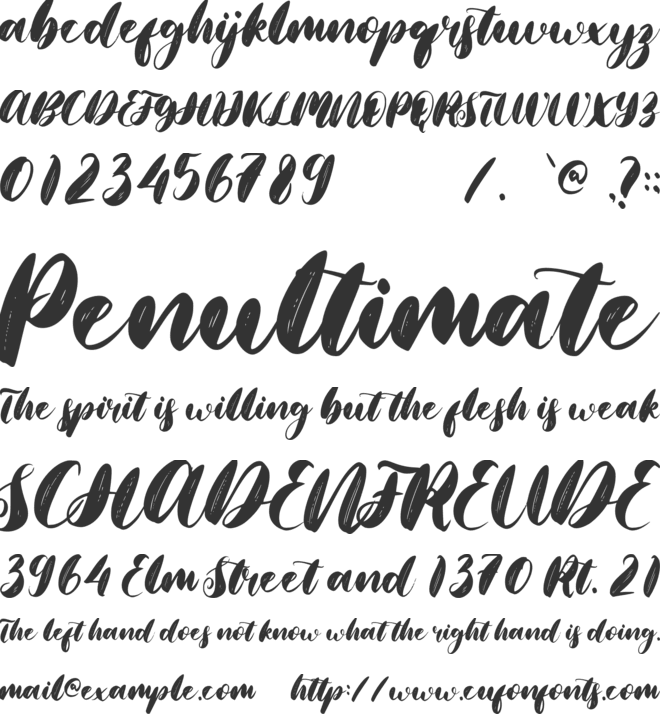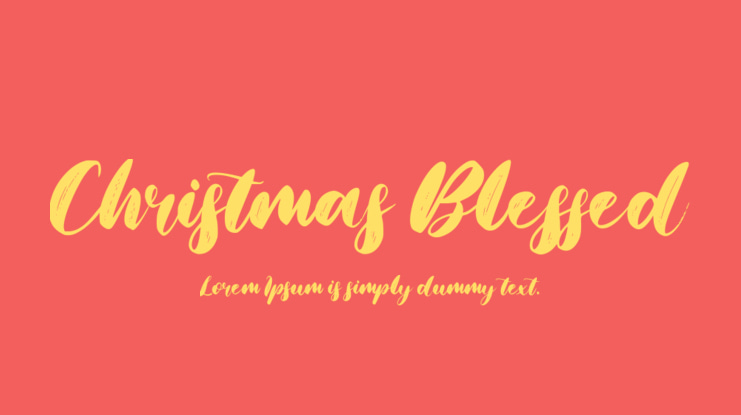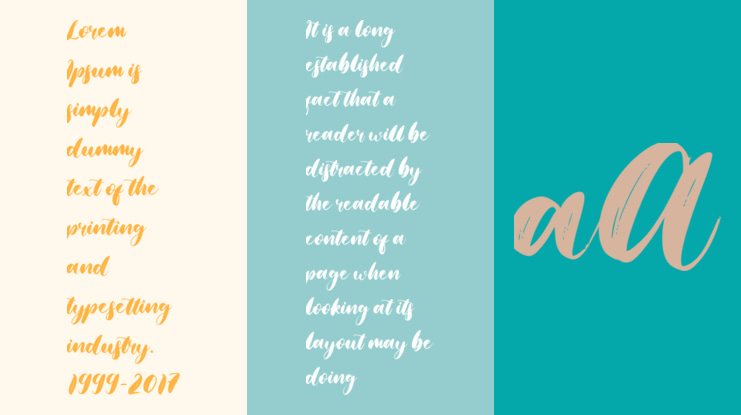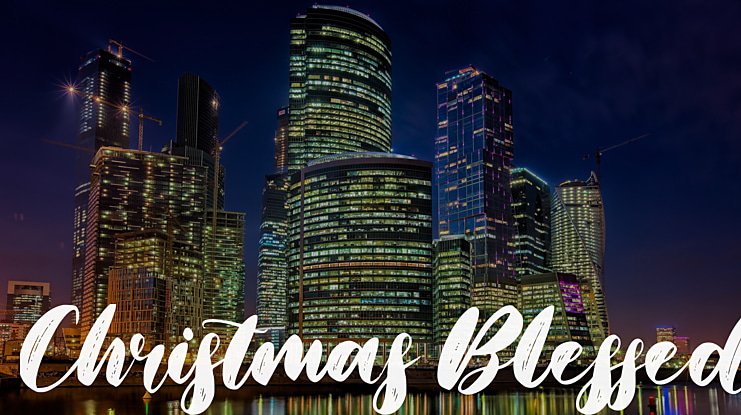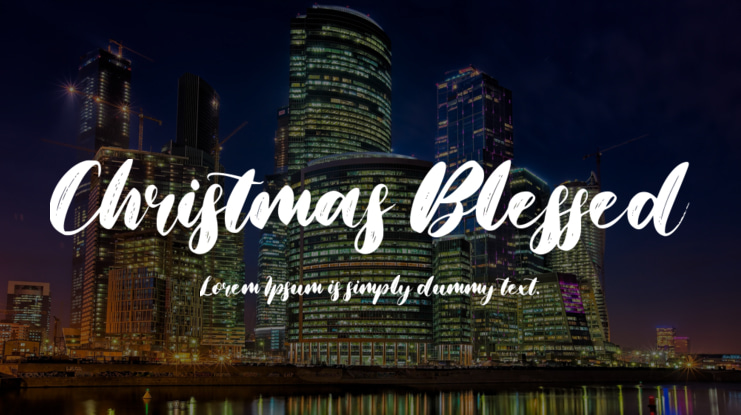
Christmas Blessed Font
Christmas Blessed is a dazzling and timeless handwritten font. It is the best choice for your Christmas season. Among them to create logos, branding, and attractive quotes. This font is PUA encoded which means you can access all the glyphs and sweeps easily!